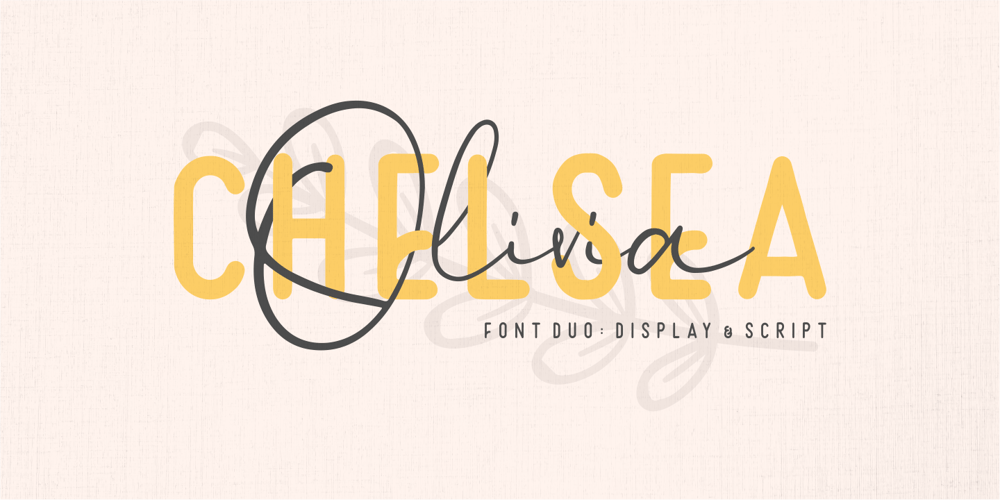
Chelsea Olivia
Chelsea Olivia font
Chelsea Olivia Font Family was designed by Risman Ginarwan and published by Garisman Studio. Chelsea Olivia contains 2 styles and family package options. A warm duo of fonts in front of you! This is a super duo with lots of ligature. This is perfect for logos, wedding invitations, easter, posters, business cards, logos, headlines, Instagram stories, youtube stories, book cover, poster promotion and many more! Get the best pairing fonts with Chelsea Olivia!